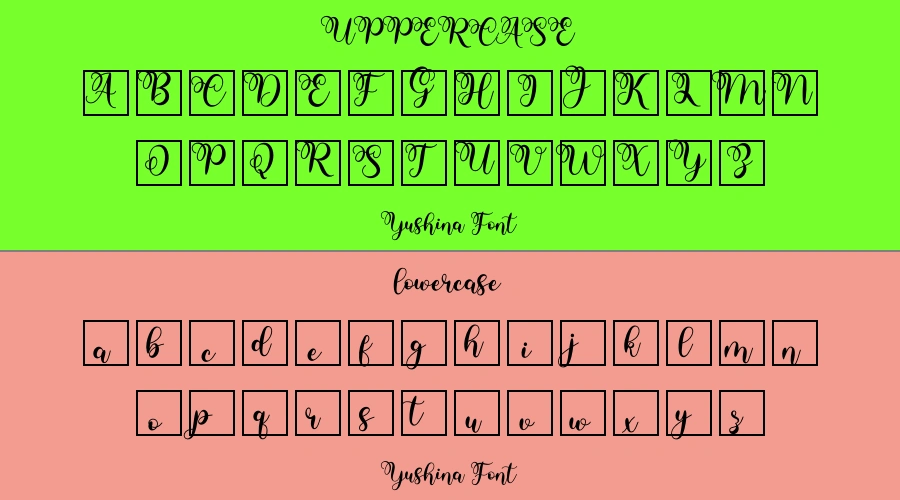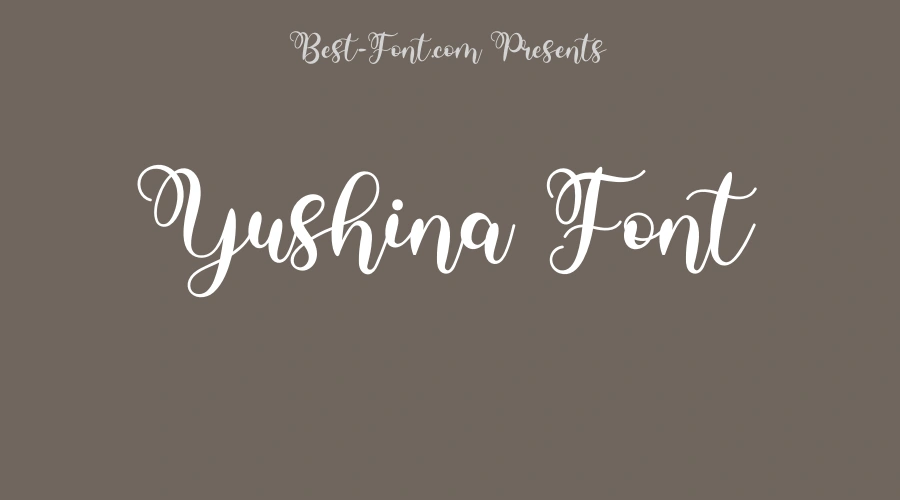
About Yushina Font
Designed with precision, Yushina Font merges tapered strokes with visual rhythm in every character. This versatility makes it particularly effective for financial statements, where memorability and aesthetic excellence directly impact communication quality. Each letterform demonstrates meticulous craftsmanship.
Technical excellence shines through elements like architectural precision and traditional styling, enhancing typographic versatility. In specification sheets settings, Yushina Font proves its worth through superior detail retention. The thoughtful execution of stem weight and industrial acceptance ensures professional results.